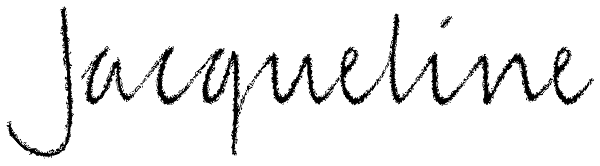
Jacqueline
Jacqueline is the culmination of successive attempts to render the loose but controlled script of the eponymous writer’s hand. The result is a fluid script that resembles pencil or chalk and flows legibly and elegantly across page or screen. The...